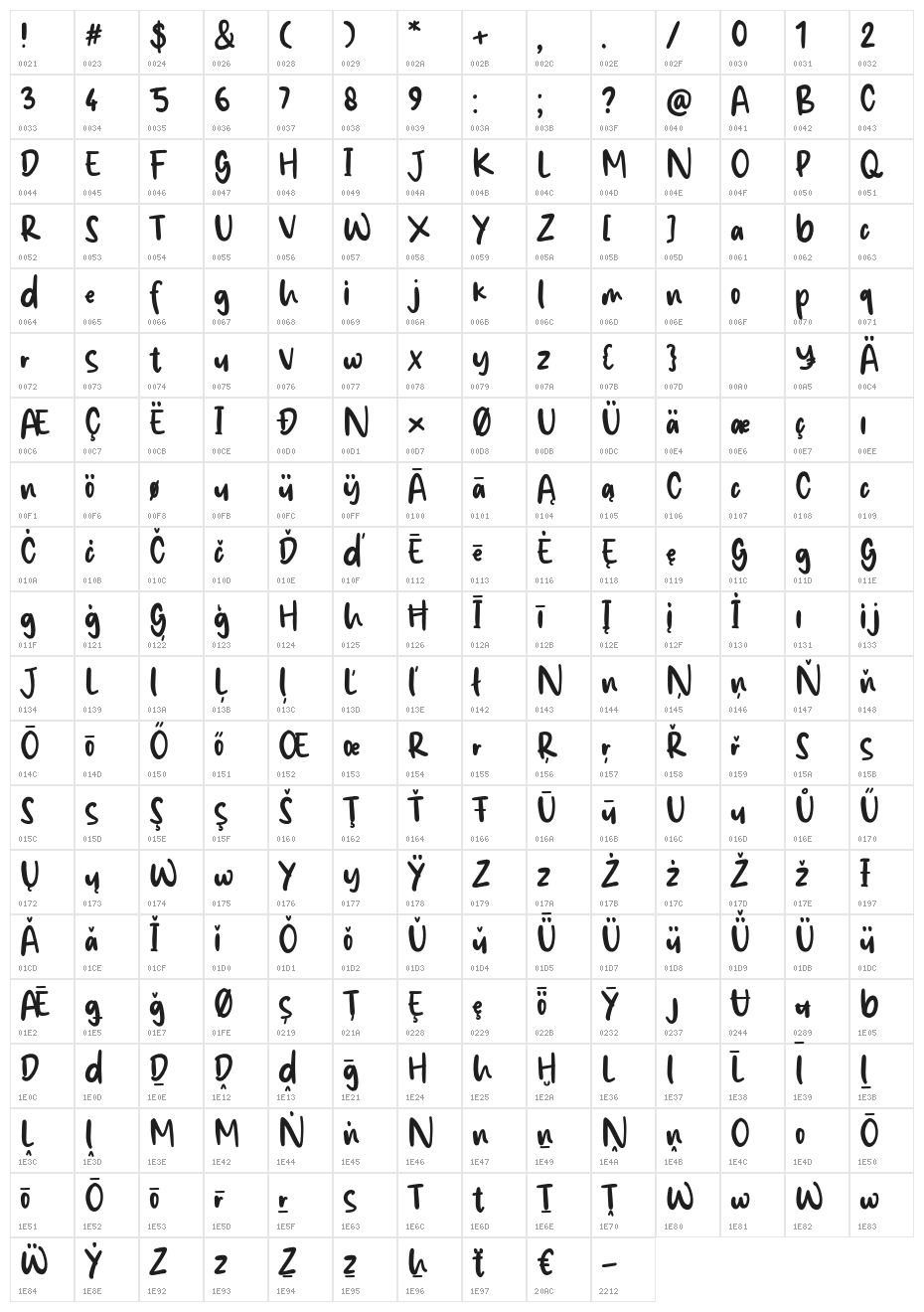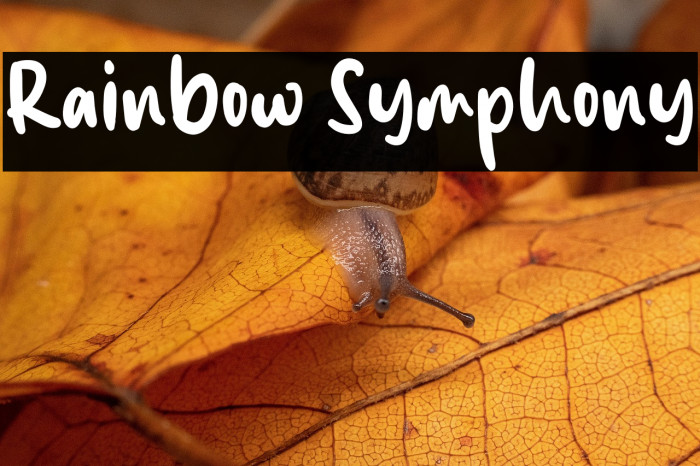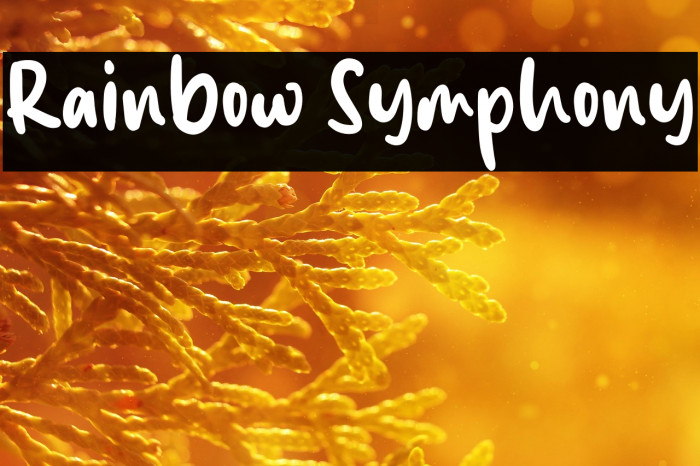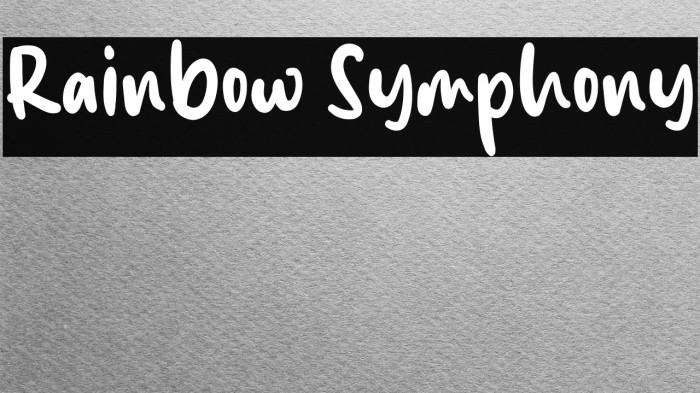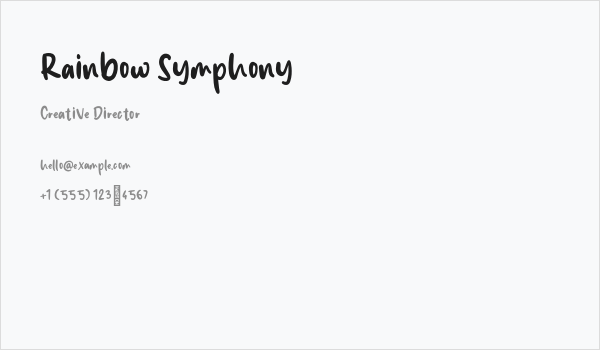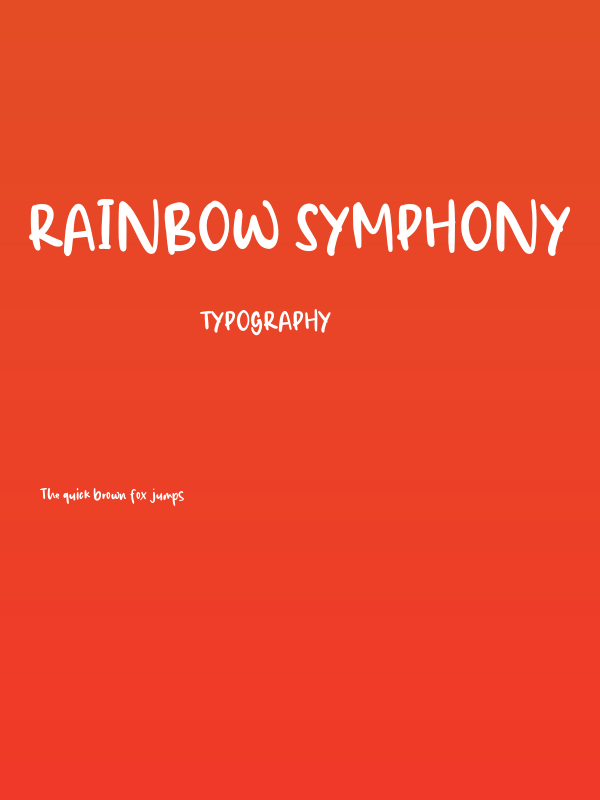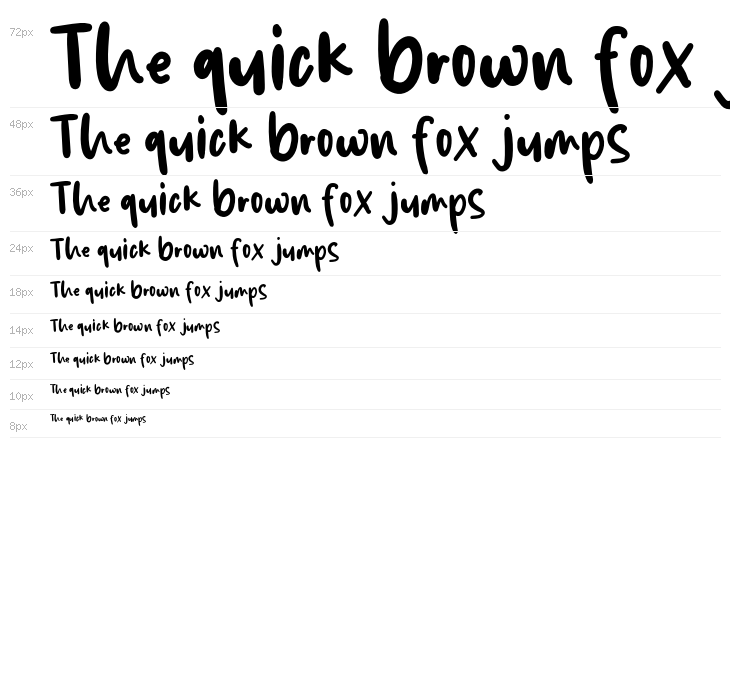
Rainbow Symphony Font
Rainbow Symphony Description
A playful, handwritten font with a casual and friendly appearance. The letters are bold and slightly irregular, giving a personal touch.
| Overall Style | Casual, Friendly |
| Use Case | Headlines, Informal text, Branding |
| Proposed Projects | Greeting cards, children's books, casual branding. |